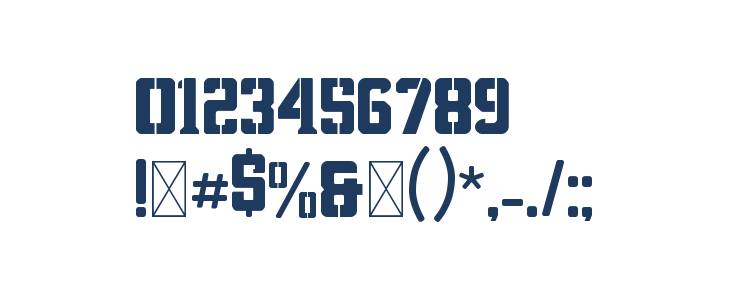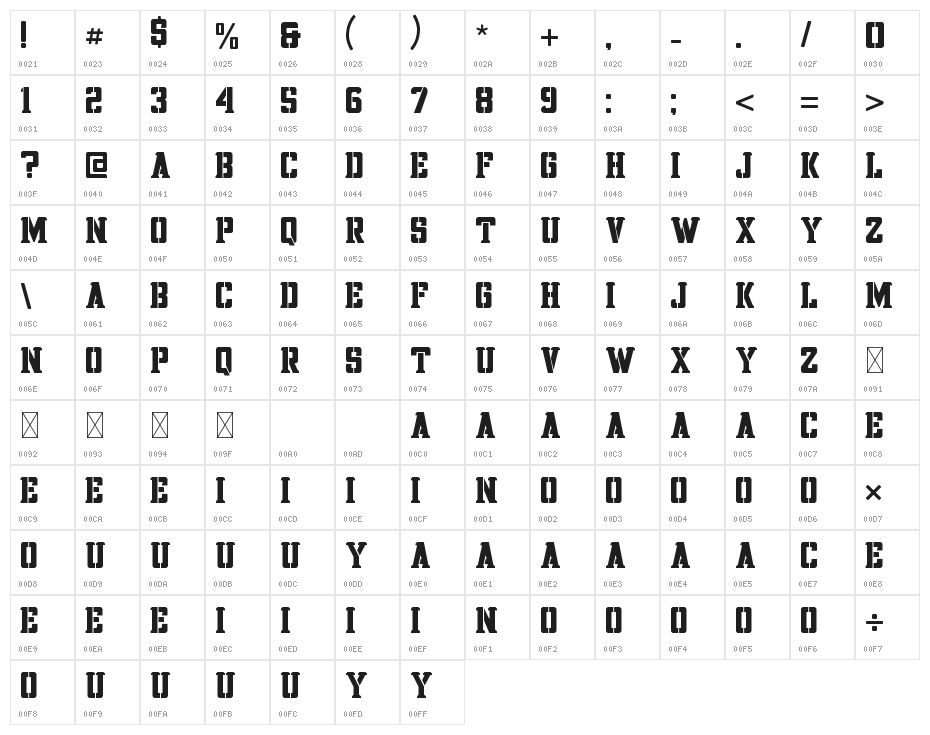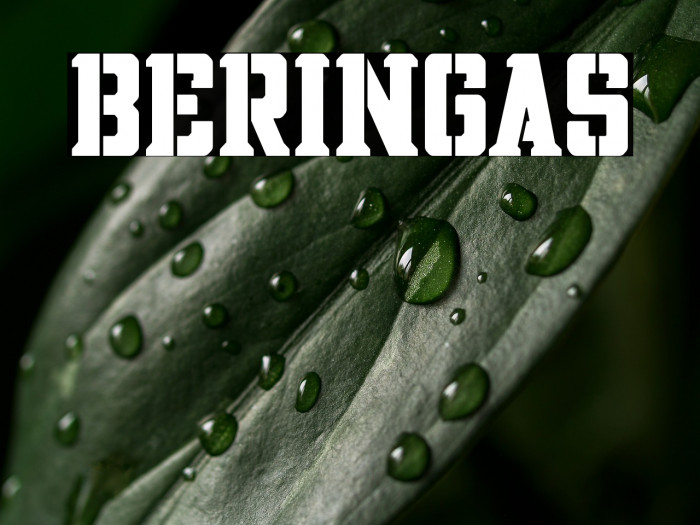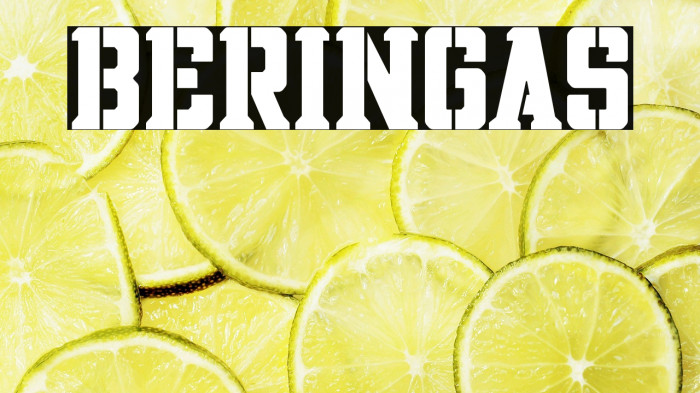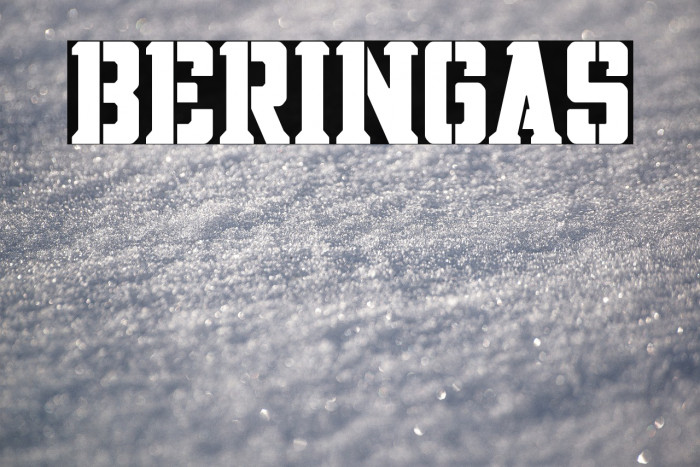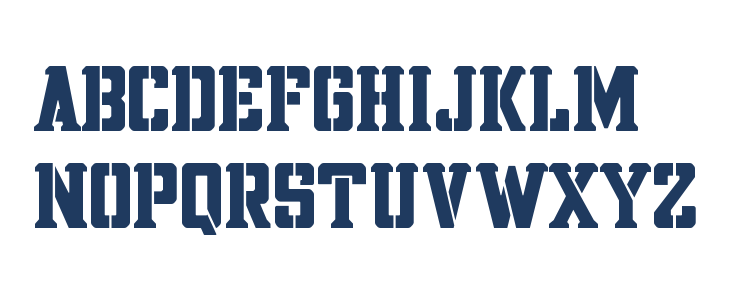
BERINGAS Font
BERINGAS Description
This font features a bold and robust design with strong, block-like characters that convey a sense of power and stability. The uppercase letters are particularly striking, with thick strokes and minimal contrast, creating a uniform appearance. The numbers and special characters maintain this boldness, ensuring consistency across all glyphs. The font's design is reminiscent of industrial or military styles, making it suitable for projects that require a strong visual impact.
| Overall Style | Industrial |
| Proposed Projects | Ideal for posters, logos, headlines, and branding materials that require a strong and impactful presence. |